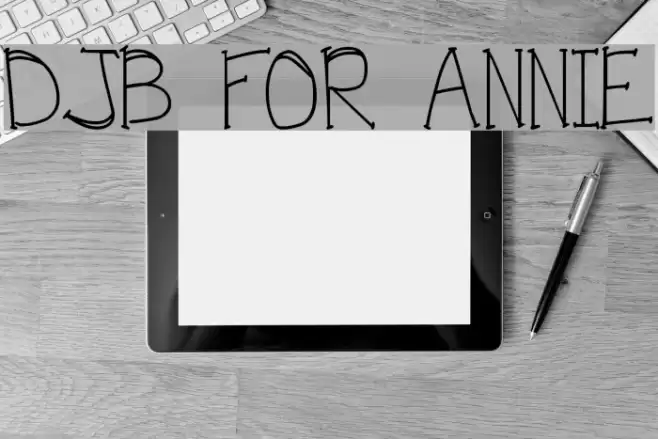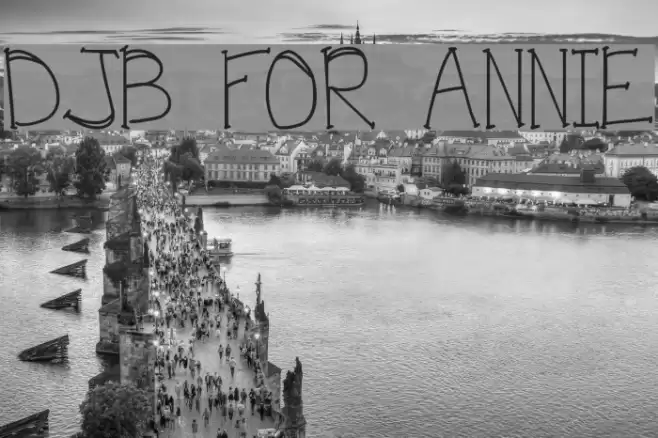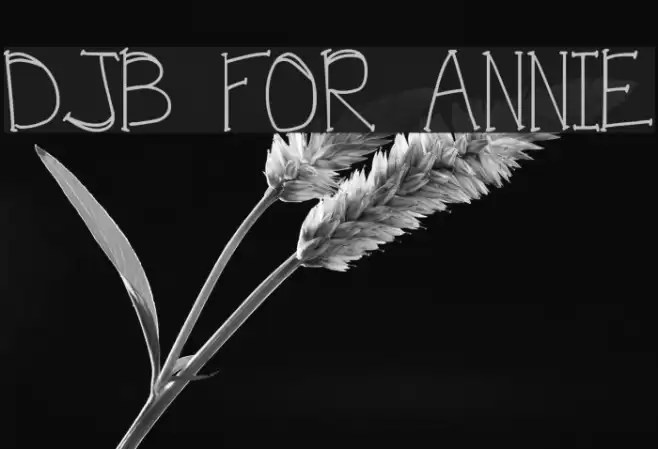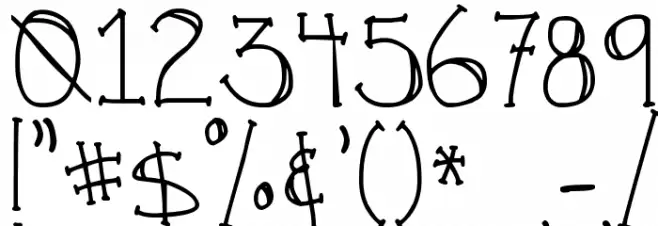
DJB FOR ANNIE Font
DJB FOR ANNIE Description
This playful and whimsical font features a handwritten style with a casual and informal appearance. The characters are slightly irregular, giving them a charming, hand-drawn look. The strokes are consistent in thickness, providing a uniform appearance across all letters. The uppercase and lowercase letters maintain a friendly and approachable feel, making them suitable for projects that require a personal touch. The numerals and special characters are designed to match the overall style, ensuring cohesion throughout any text. This font's unique character makes it ideal for creative projects that aim to convey warmth and personality.
A playful, handwritten font with a whimsical and informal style from Handwritten fonts.
- Proposed Projects: Ideal for greeting cards, children's books, personal blogs, and creative branding projects.
- Overall Style: Whimsical
- Use Case: Headlines, Logos, Informal Text